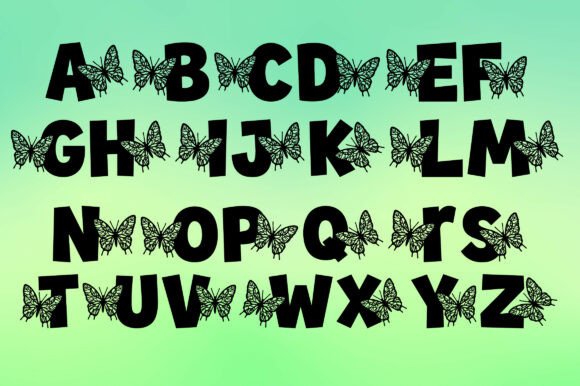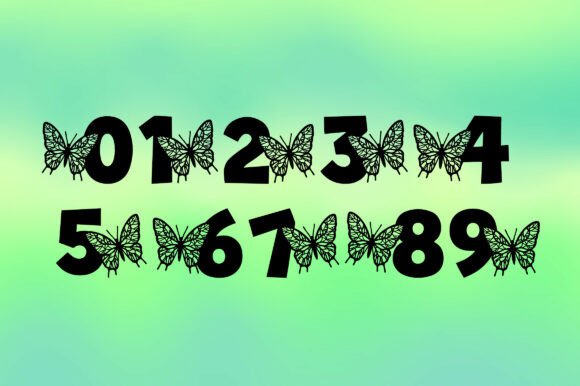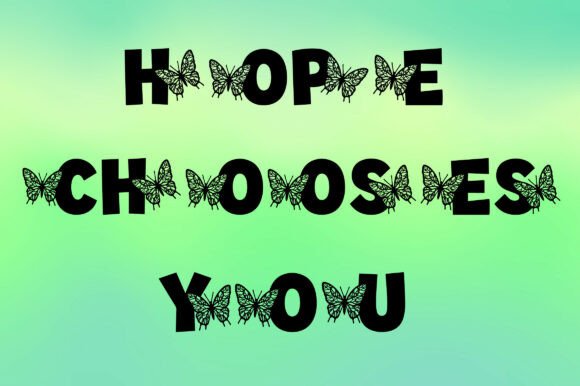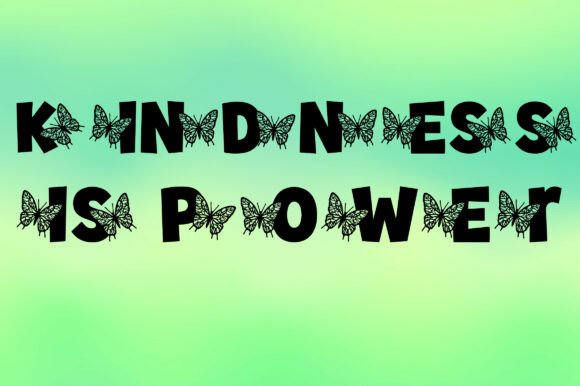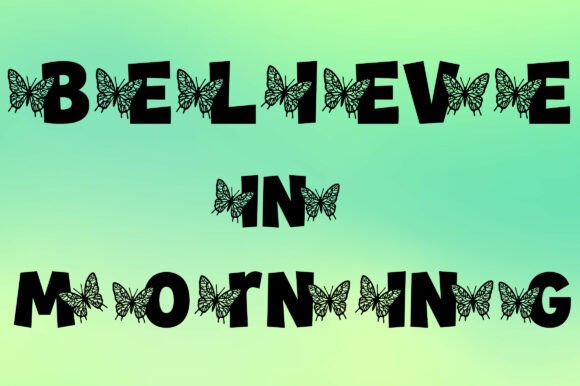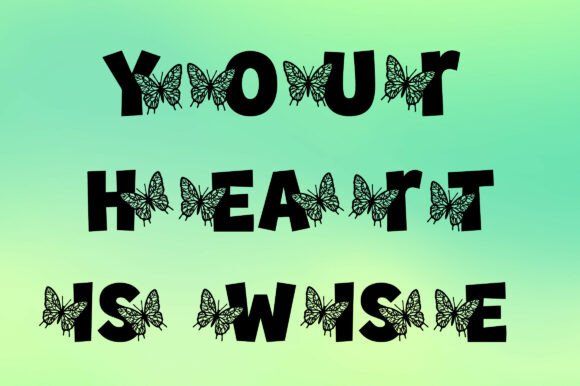
The Perfect Winged Companion for Your Designs
You know that moment when a single element makes all the difference in your creative project? For designers, that moment often comes when they stumble upon the perfect font. It’s a feeling that’s hard to describe, but it’s a mix of excitement, relief, and a dash of magic. And that’s exactly what the Balaba Font brings to the table.
This elegant decorative font is inspired by the beauty of butterflies and is designed to add a touch of whimsy and sophistication to your designs. With its delicate flourishes and intricate details, the Balaba Font is perfect for logos, branding, invitations, posters, and a wide range of creative projects.
Balaba Font Key Features
- Unique Characteristics: The font features a unique blend of modern and traditional elements, with subtle flourishes and ornaments that add a touch of elegance and sophistication.
Balaba Font Review
As a designer, I was excited to dive into the Balaba Font and see what it has to offer. Overall, I’d say it’s a solid addition to any font collection. ✨
- Unique aesthetic: Balaba Font has a distinct, modern feel that sets it apart from more common fonts.
- Legibility: The font is well-designed for digital use, making it easy to read on screens.
- Font weight options: The font comes with a range of weights, allowing for a good deal of customization.
However, as with any font, there are some limitations to consider. ⚠️
- Limited language support: The font may not be optimized for languages that require complex character sets.
- No bold-italic variant: While the font has a range of weights, it lacks a bold-italic option.
- Not ideal for print use: The font’s design may not be suitable for print materials, where a more traditional font is often preferred.
Overall, I’d give the Balaba Font 4 out of 5 stars. It’s a great choice for digital projects, but may not be the best fit for every design need.
Tips for Getting the Most Out of the Balaba Font
The Balaba Font is ideal for creative and artistic projects. To get the most out of it, use it for:
- Headings and titles.
- Quotations and captions.
- Branding and logos.
The Balaba Font is commonly used for:
- Artistic and creative projects.
- Personal and professional portfolios.
Q: Can I customize the Balaba Font to fit my design needs?